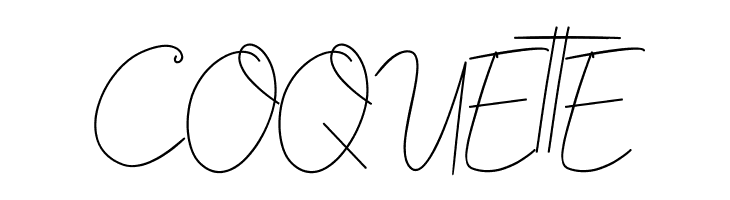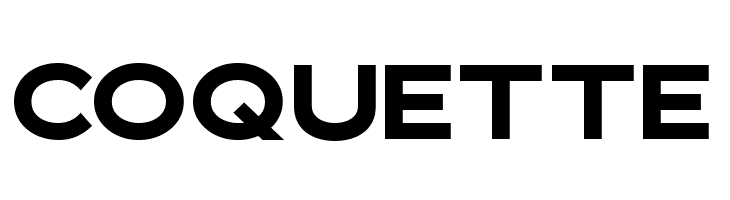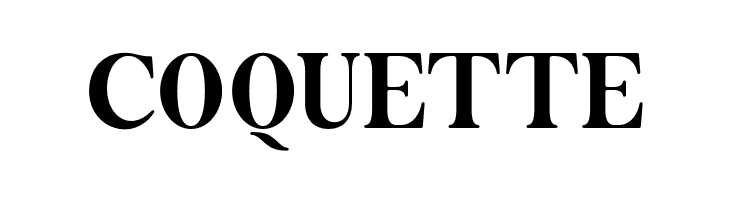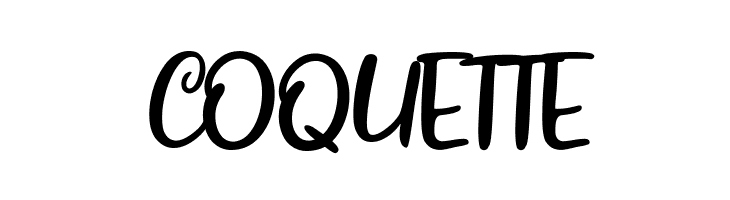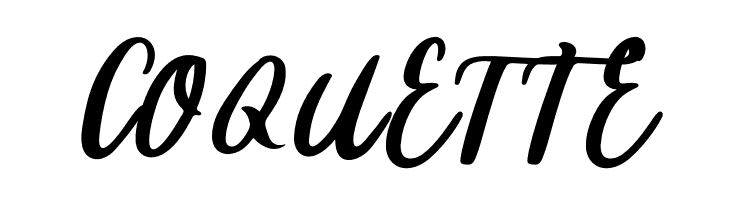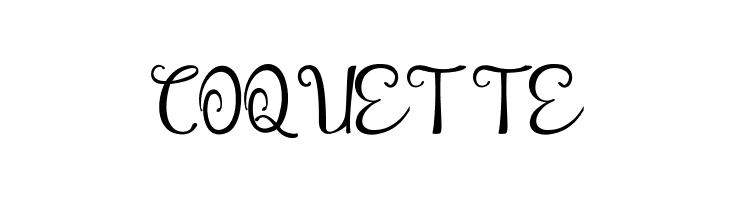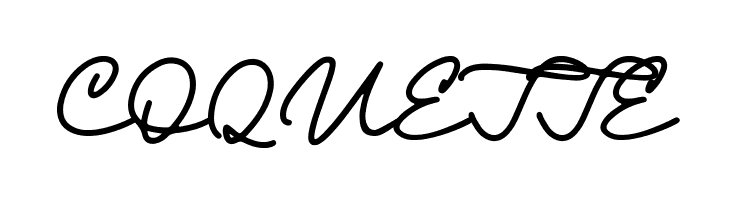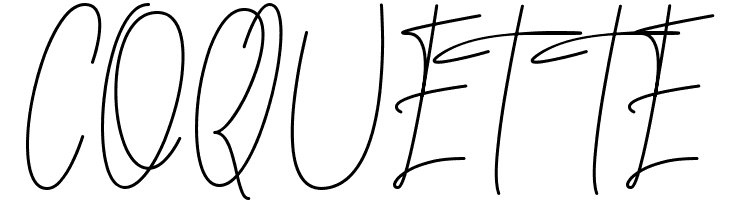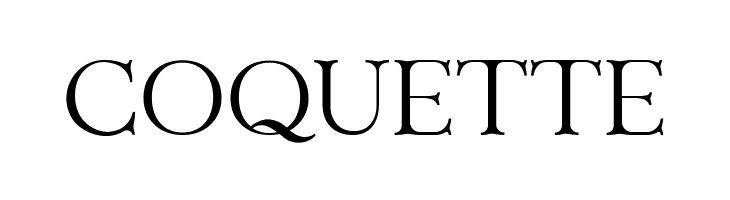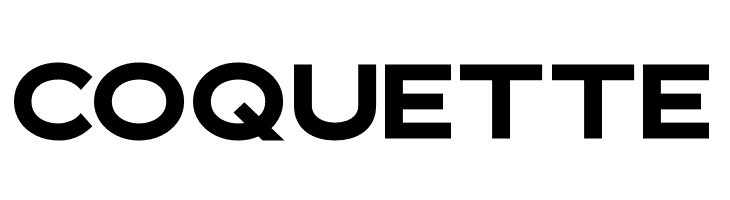
A clean, modern sans-serif font with geometric letterforms.
A modern sans-serif font with a medium weight and italic style, offering a sleek and dynamic appearance.
A clean, modern sans-serif font with a thin weight and minimalistic design.
A modern, thin sans-serif font with an elegant italic slant.
A bold, expressive handwritten font with a modern and dynamic style.
A graceful and elegant script font with a handwritten style.
A dynamic and flowing script font with a handwritten style.
A dynamic and flowing script font with elegant, interconnected strokes.
A bold, italic font with sharp, angular lines and a futuristic style.
A bold, energetic brush-style font with a hand-painted appearance.
A bold, inline font with a grunge texture, combining modern geometry with vintage industrial style.
A bold, brush-style font with dynamic, uneven strokes and a handcrafted feel.
A bold, geometric font with strong, angular lines and a modern aesthetic.
A cursive, signature-style font with elegant, flowing strokes.
A bold, playful script font with interconnected letters and smooth curves.
A bold, expressive brush script font with a hand-painted look.
A bold, brush-stroke script font with a textured, hand-painted style.
A bold, brush-style script font with textured, hand-painted strokes.
A bold, playful handwritten font with thick, rounded strokes.
A bold, angular font with a modern, geometric style.
A playful and elegant script font with flowing, interconnected letters.
A bold, decorative font with vintage flourishes and ornate details.
A bold, decorative font with ornate swashes and flourishes, perfect for vintage-inspired designs.
A bold, modern sans-serif font with geometric lines and consistent stroke width.
Bold, geometric sans-serif font with a modern aesthetic.
A graceful, handwritten font with elongated, flowing characters.
A bold, expressive script font with flowing, connected letterforms.
An elegant, decorative script font with flowing, interconnected letterforms and ornate flourishes.
A classic serif font with high contrast and elegant curves.
A classic serif font with elegant serifs and medium contrast, suitable for traditional and modern applications.
A flowing, cursive font with elegant, interconnected letters and a sophisticated style.
A classic and elegant cursive script font with flowing letterforms.
A classic serif font with elegant strokes and balanced contrast.
A bold, angular font inspired by ancient runic alphabets, perfect for historical or fantasy themes.
A bold, angular font with a runic, historical style.